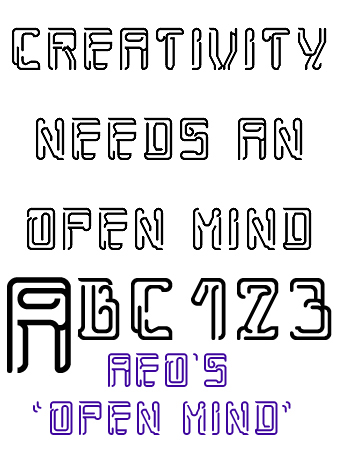
• This is not intended to be a stencil font nor is intended to be 'flood-filled'. It is simply a decorative and fun font which I'll extend a little after the competition. I'm not sure if it needs a lc.
I see neon signs; paperclips; computer fonts; shadows - all manner of things going on here :)
I'm loving it!
Intense and diverse.
true very creative font